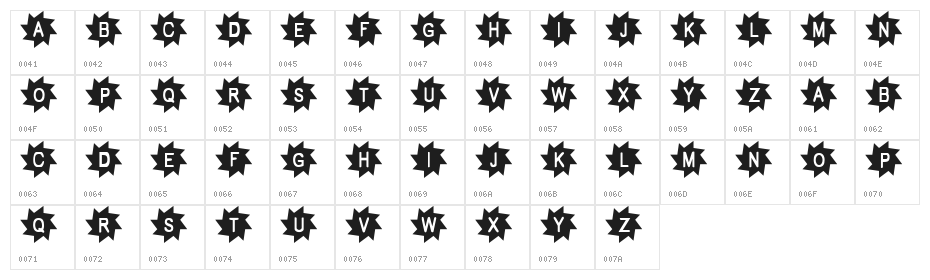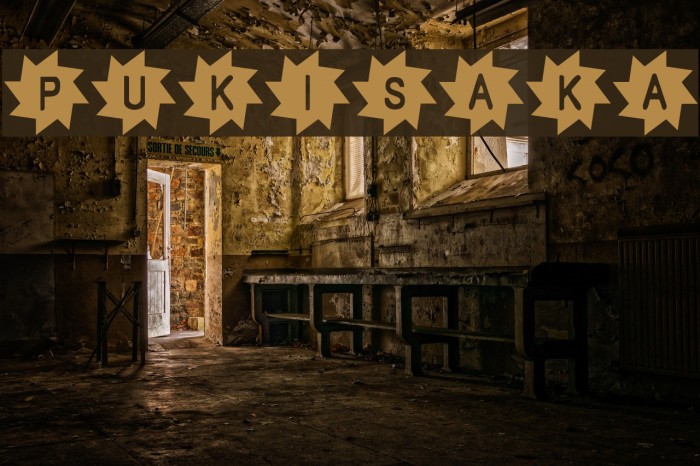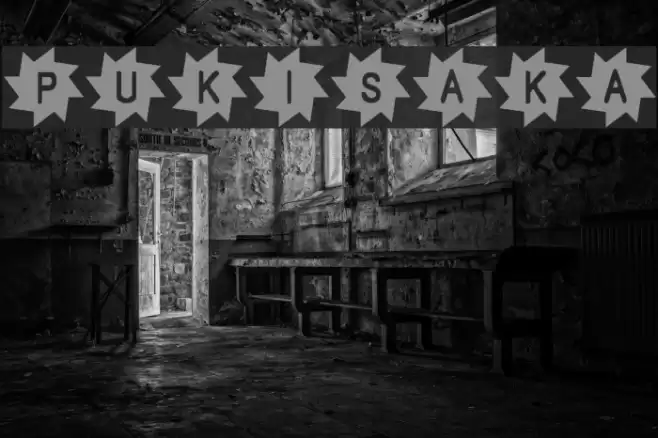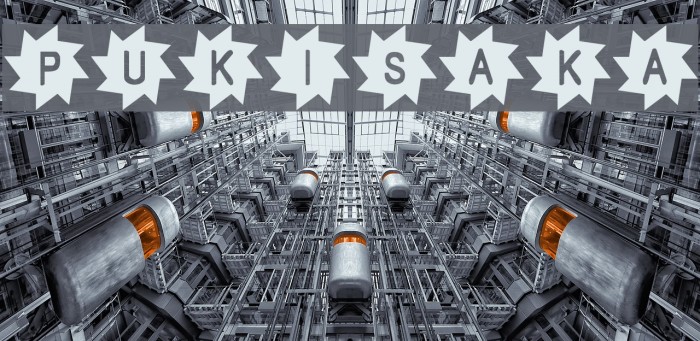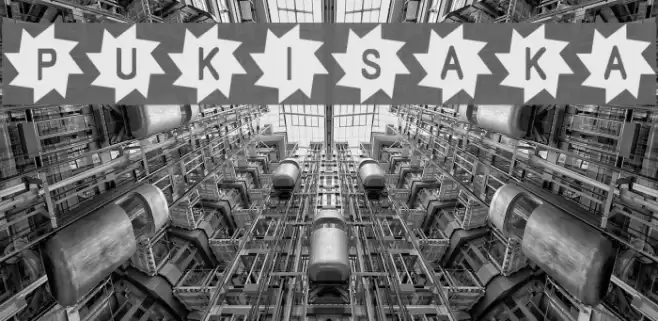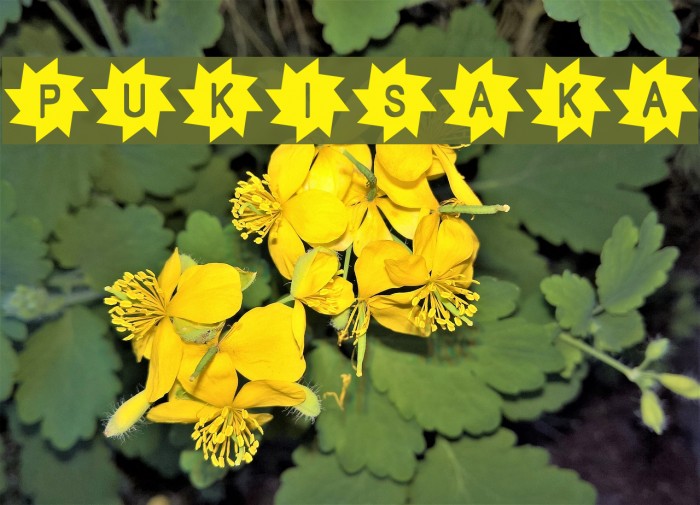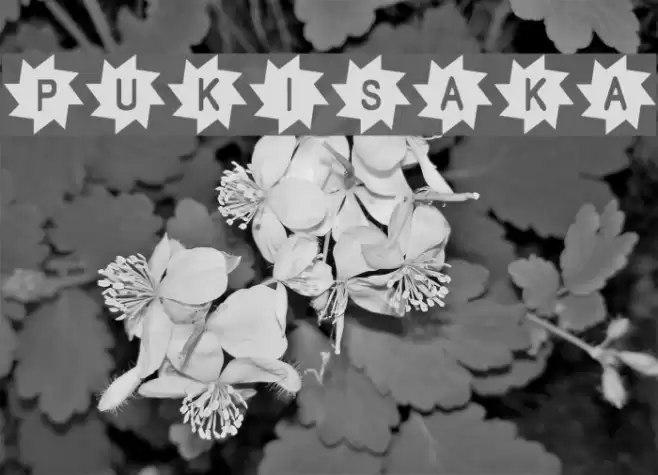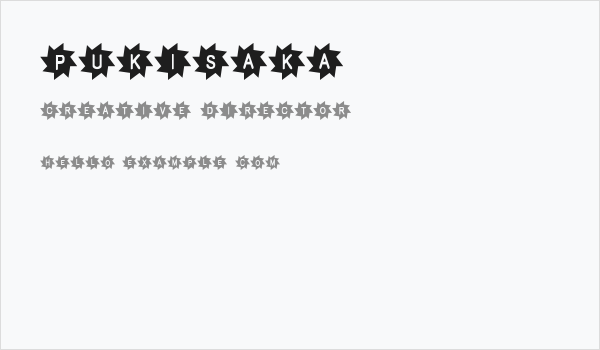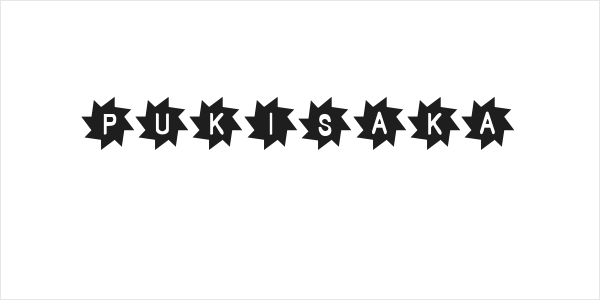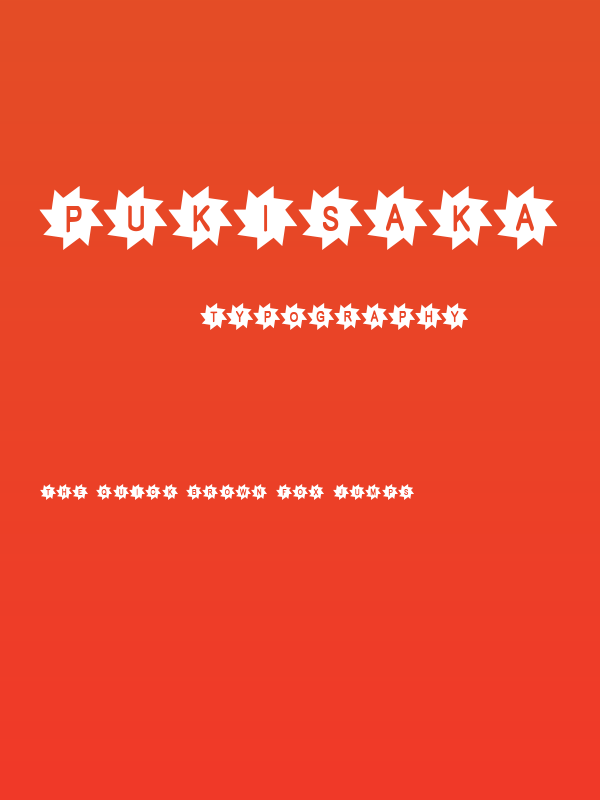
Pukisaka Font
Pukisaka Description
This font features bold, uppercase letters encased within starburst shapes, creating a striking and attention-grabbing appearance. Each character is centered within a star, giving it a unique decorative flair. The boldness of the letters ensures high visibility, making it ideal for designs that require a strong visual impact. The consistent use of star shapes around each letter adds a playful and dynamic element to the font, making it suitable for creative and unconventional projects.
| Proposed Projects | Ideal for posters, event invitations, children's book covers, and playful branding. |